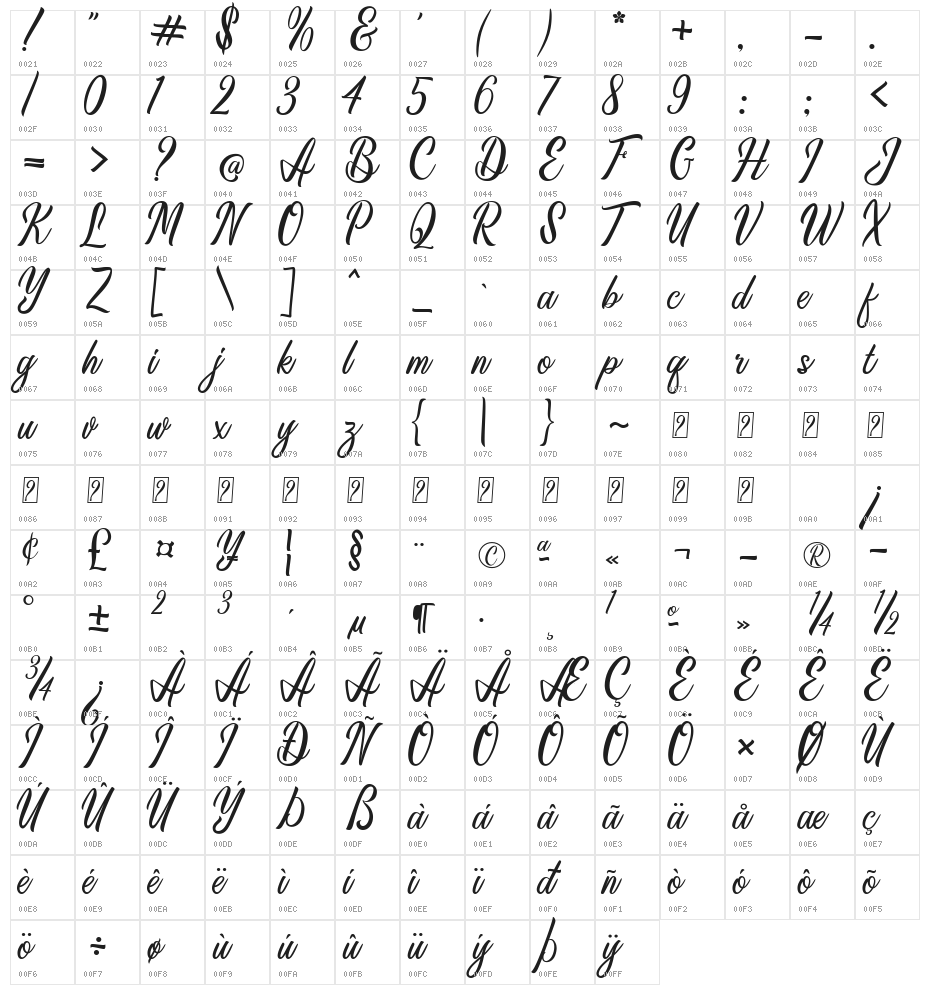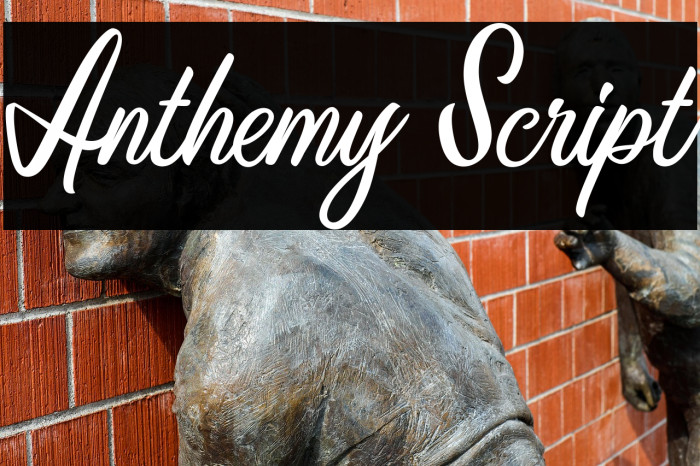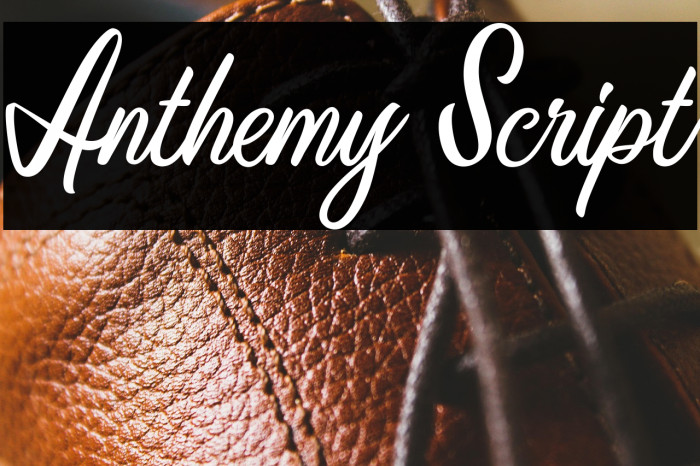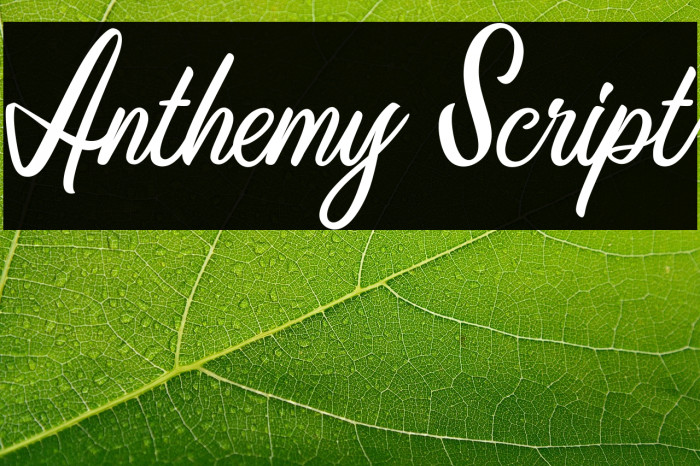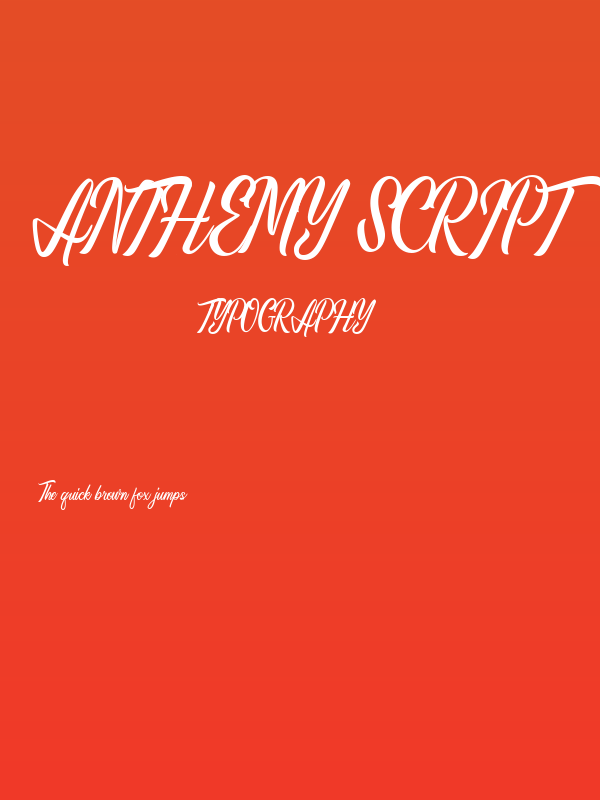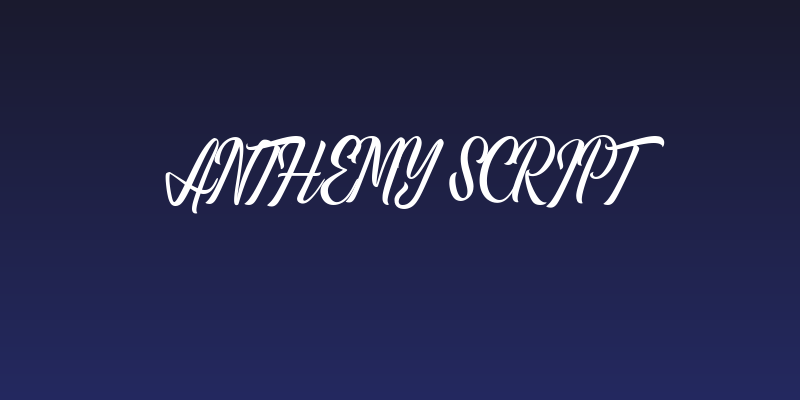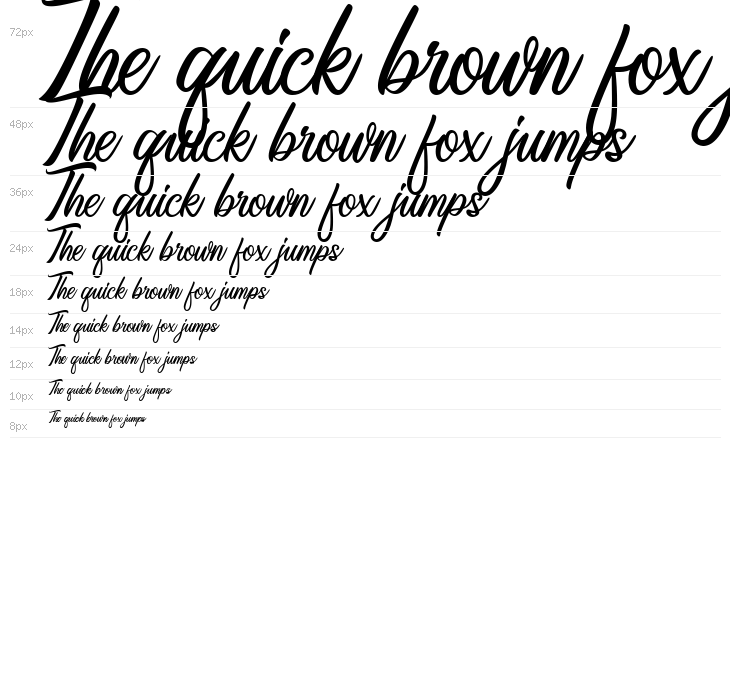
Anthemy Script Font
Anthemy Script Description
This font features a flowing, cursive style with elegant, sweeping strokes that give it a sophisticated and artistic appearance. The letters are interconnected, creating a seamless and fluid look that is characteristic of script fonts. The uppercase letters are bold and prominent, while the lowercase letters maintain a consistent flow, enhancing readability. The numerals and special characters are designed to match the overall aesthetic, with a similar emphasis on curves and fluidity. This font is ideal for projects that require a touch of elegance and creativity.
Overall StyleElegant, Artistic
Use CaseLogos, Invitations, Decorative text
Proposed ProjectsIdeal for wedding invitations, greeting cards, branding, and logo design.